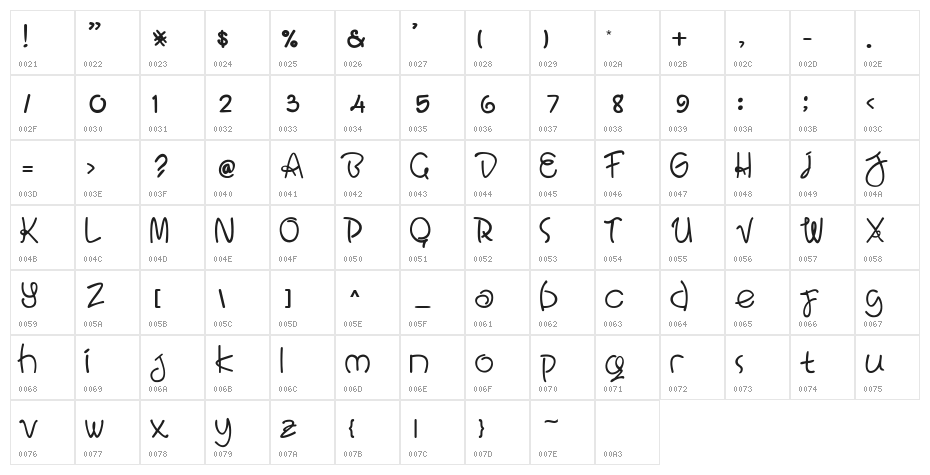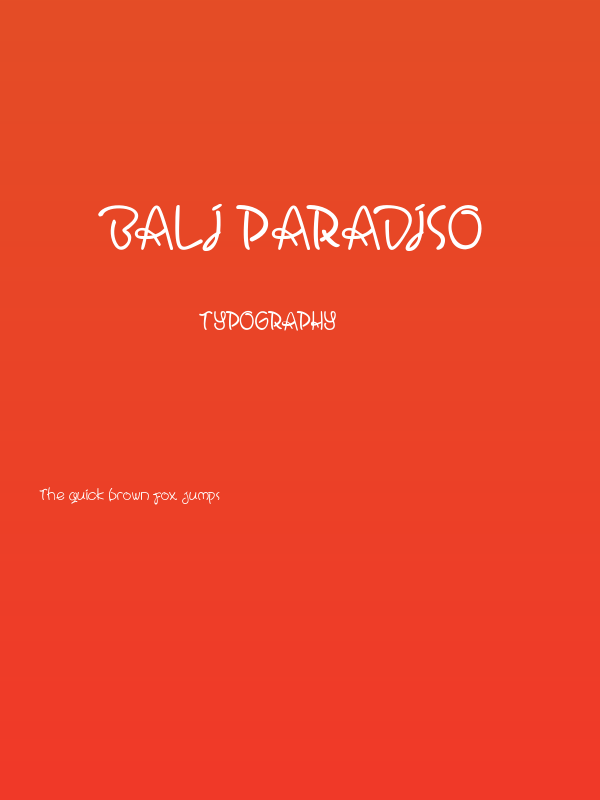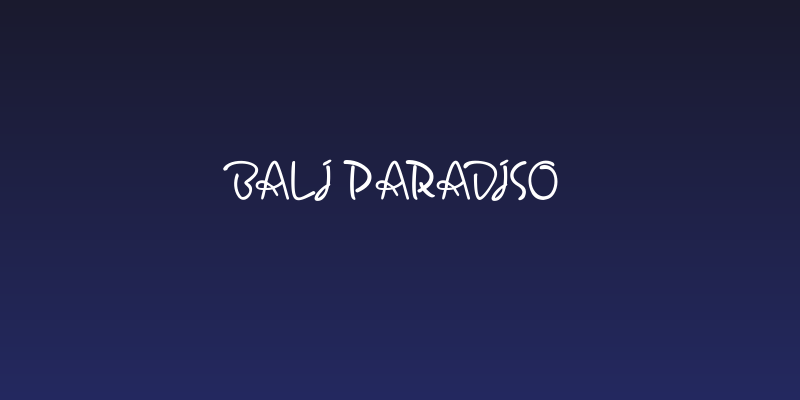
Bali Paradiso Font
Bali Paradiso Description
This playful and whimsical font features a handwritten style with a casual and friendly appearance. The letters are characterized by their smooth, flowing curves and slightly irregular shapes, giving it a personal and informal touch. The uppercase letters are bold and prominent, while the lowercase letters maintain a consistent style with a slightly smaller size. The numerals are clear and easy to read, matching the overall playful aesthetic. Special characters are included, maintaining the same lively and dynamic style. This font is perfect for projects that require a fun and approachable look.